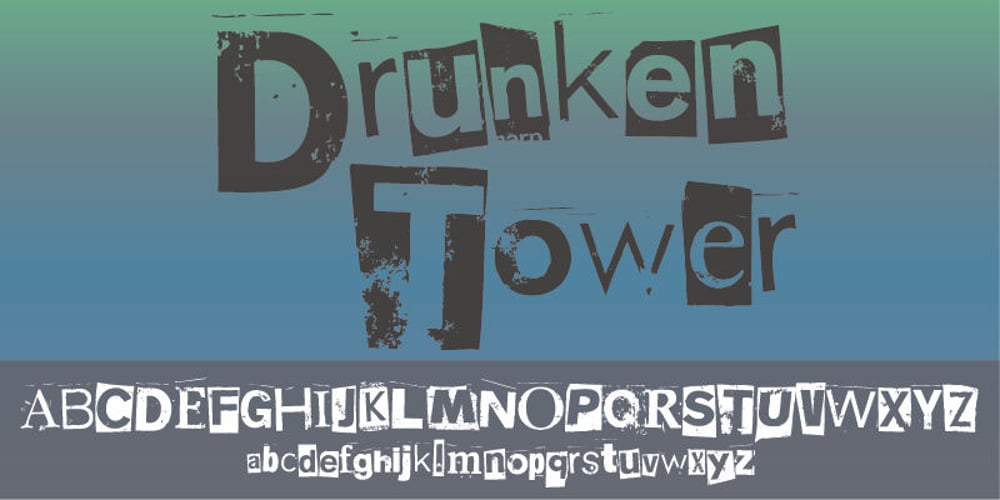
Drunken Tower Font Family was designed by Jakob Fischer and published by PizzaDude.dk. Drunken Tower contains 1 styles and family package options. Drunken Tower may look like a bit like my a Drunken Hour and Drunken Shower fonts. But there are a lot differences! This font is way more distorted and rugged than its brothers! The font has got Ligatures for double upper- and lowercase and numbers as well. Plus, an alternate version for each letter – again, both upper- and lowercase! You will need to use OpenType supporting applications to use the autoligatures.